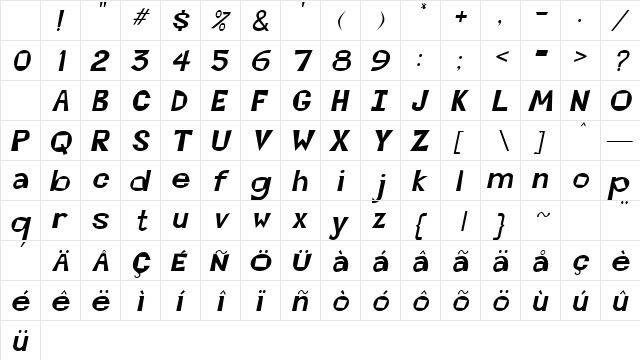
Complete Cocktails Italic glyph index. Displaying only characters natively supported by Cocktails Italic font.
Cocktails is a composed and adaptable typeface that performs quietly and consistently across a wide range of design contexts. The slanted form adds forward momentum and visual energy.